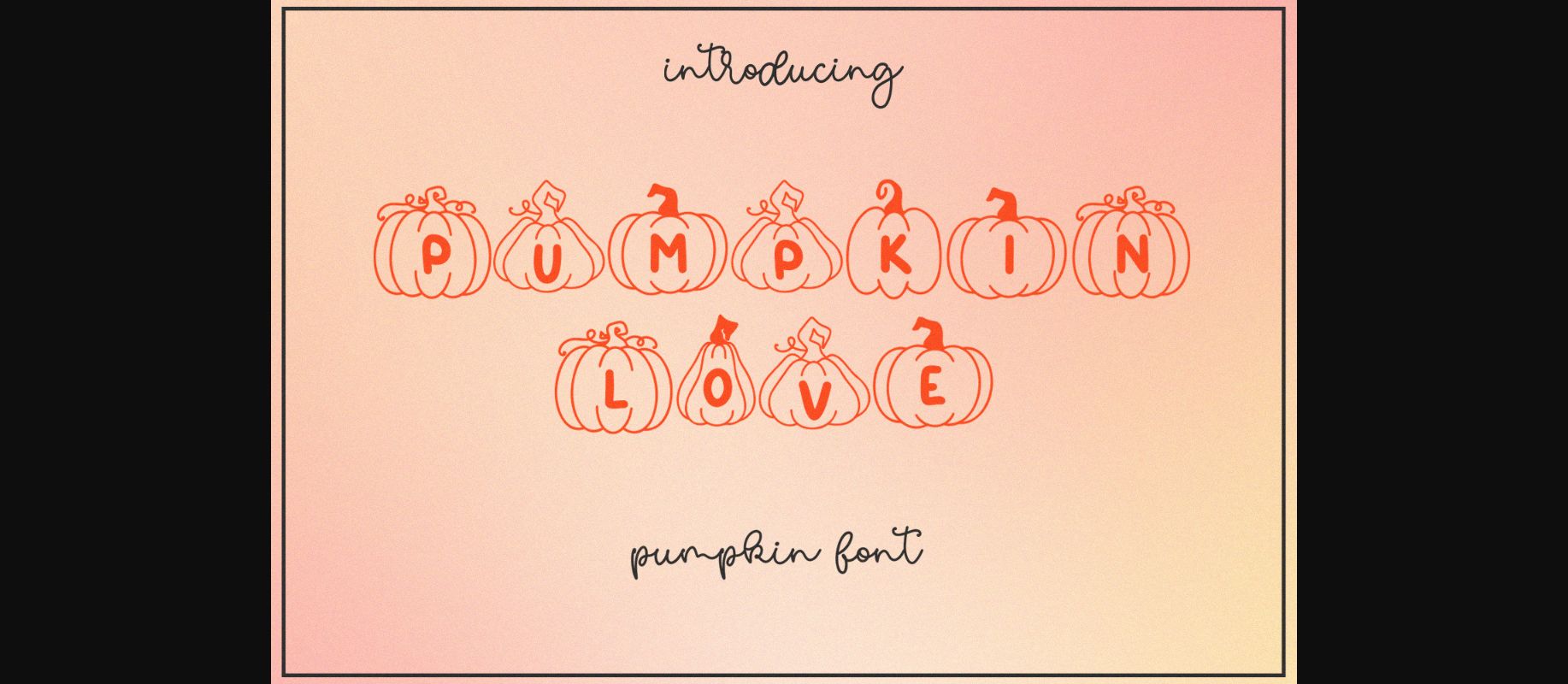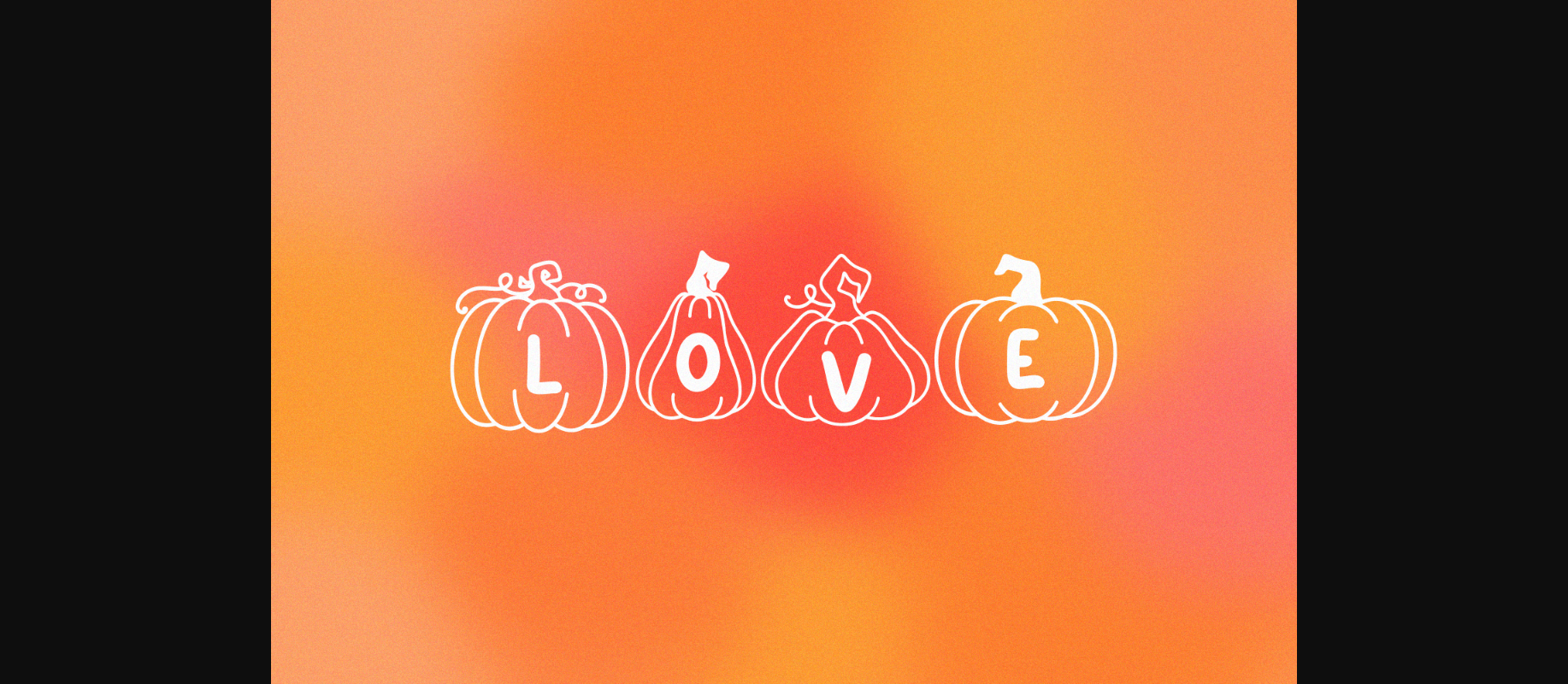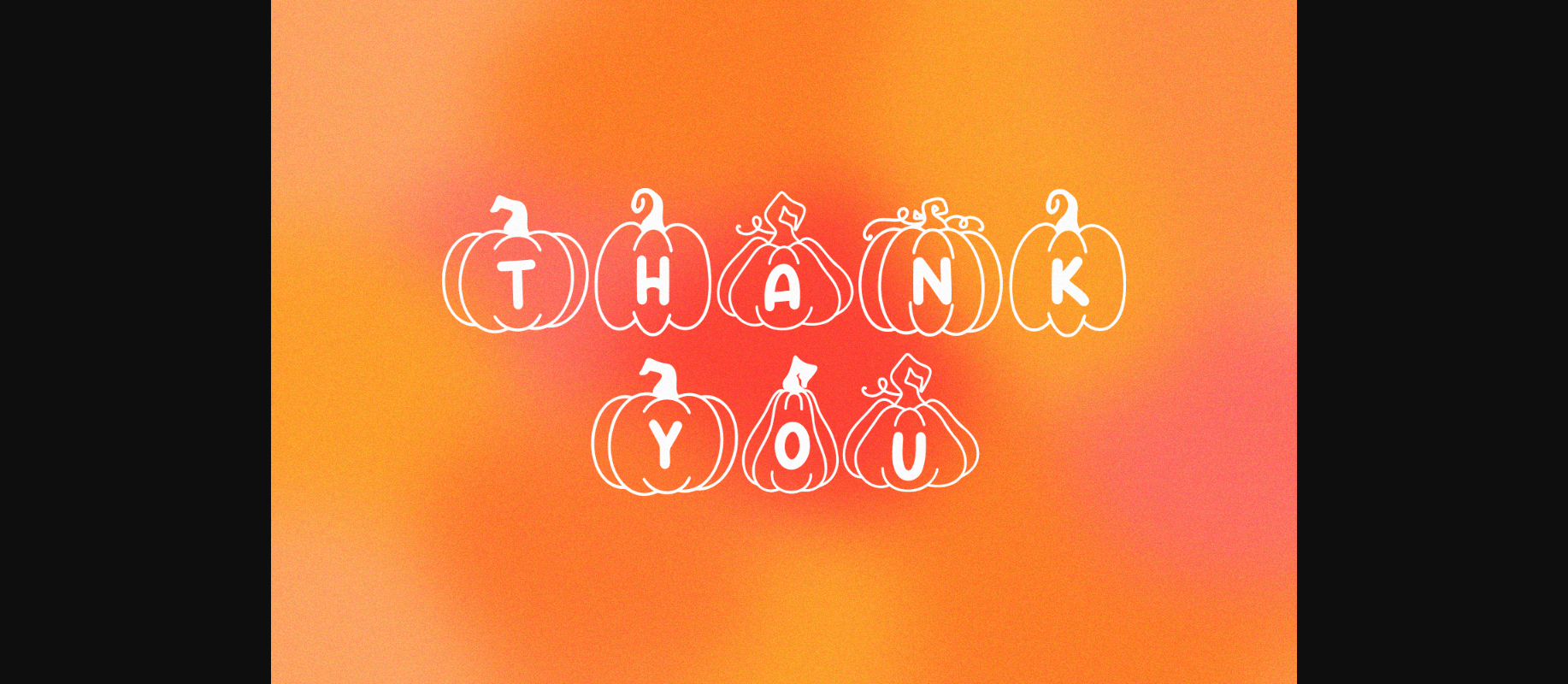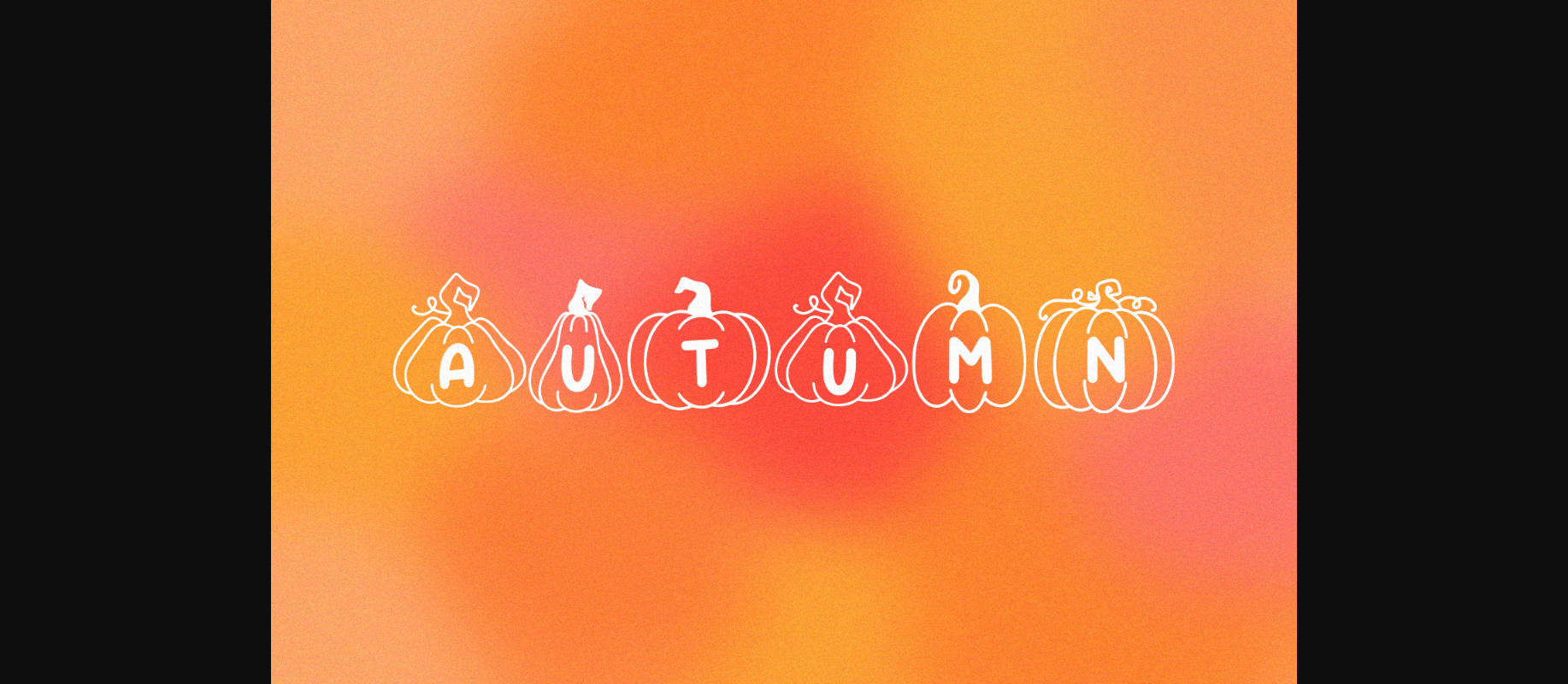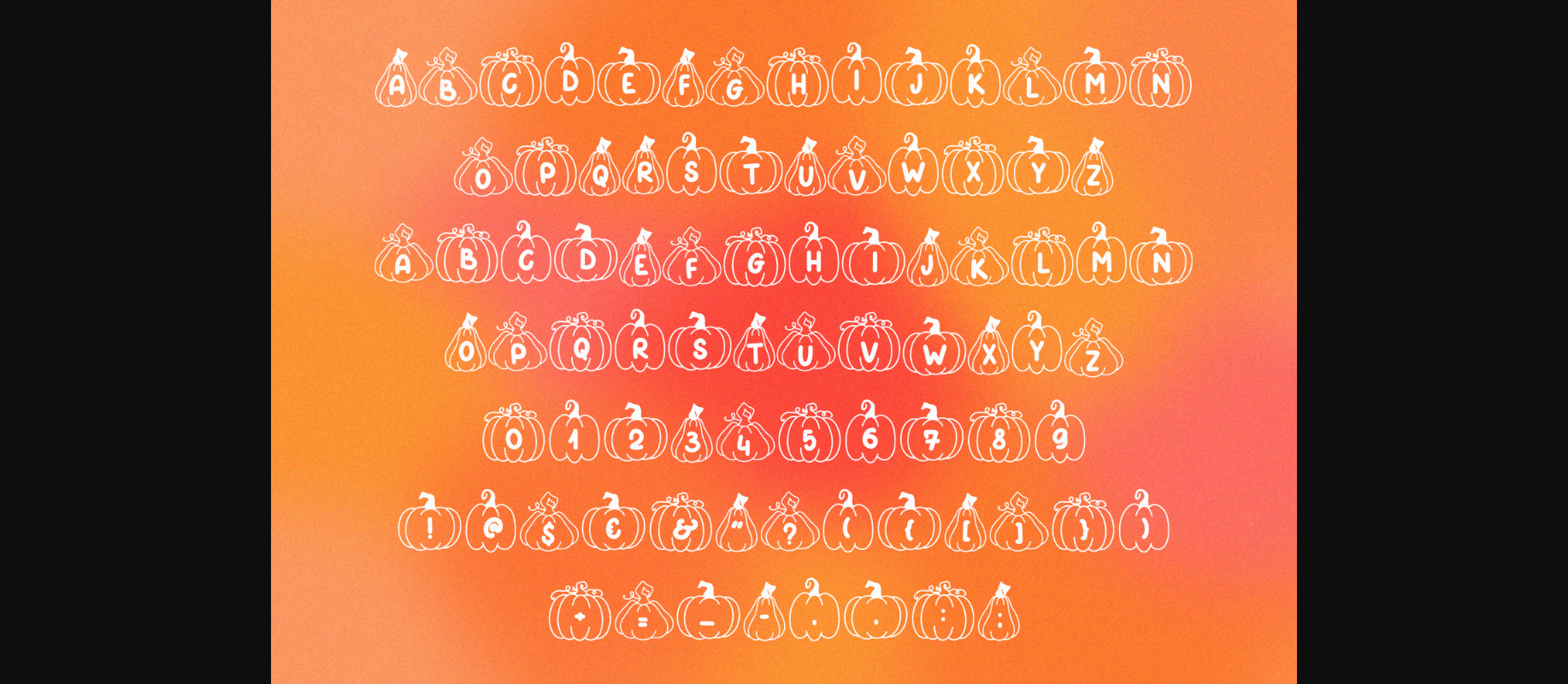
HomeDecorative FontsPumpkin Love Font Decorative Fonts Pumpkin Love Font FacebookTwitterPinterestWhatsApp 1 of 7 ... Pumpkin Love Font Poster 2... Pumpkin Love Font Poster 3... Pumpkin Love Font Poster 4... Pumpkin Love Font Poster 5... Pumpkin Love Font Poster 6... Pumpkin Love Font Poster 7... About Pumpkin Love Font Pumpkin Love is a unique and interesting decorative font. Featuring letters inside a cute and quirky pumpkin this font will bring a feeling of Halloween to each and every project idea. DOWNLOAD NOW 213 0 People also explored Dhealova Font Camelia Font Bran Ston Aarianna Font Fressia Quadro Font Finger Style Font Bible Font Beauty Hamida Font Sweety Font Bellarush Font Branding Font TagsPumpkin Love Font Previous articleLoryme FontNext articleFebruary Font LEAVE A REPLY Cancel reply Comment: Please enter your comment! Name:* Please enter your name here Email:* You have entered an incorrect email address! Please enter your email address here Website: Save my name, email, and website in this browser for the next time I comment. BLOG Font Trends 2025: Top Typography Styles for Spring Best Free Fonts for Logo Design in 2025 (Stylish & Professional) Free Fonts Risk: Why Free Fonts Can Be Dangerous for Designers Where to Buy American Fonts Online in 2024 Personal Use Free Einstaint Personal Use Free Read more Elliane Personal Use Free Read more Clumed Personal Use Free Read more Anggiana Personal Use Free Read more